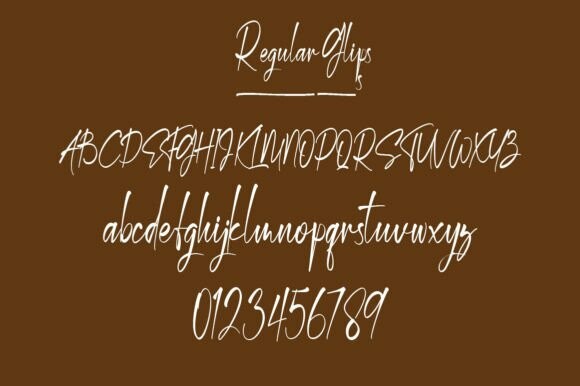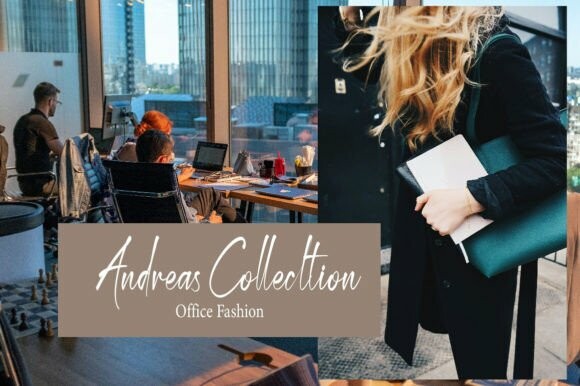
Most Emotional Font
Most Emotional Font is a dazzling script font that combines mystery with elegance. Its intricate swirls and exquisite letterforms exude sophistication, perfect for luxurious branding, upscale invitations, and editorial design.